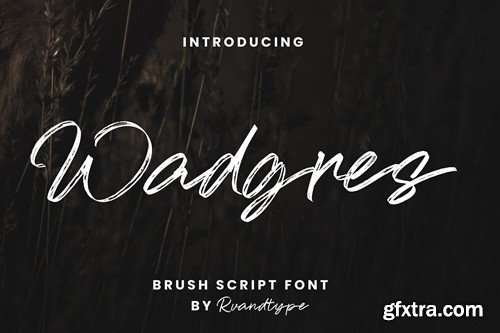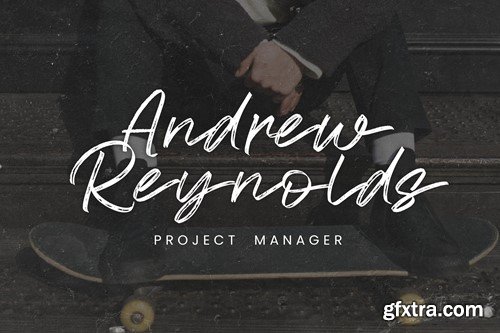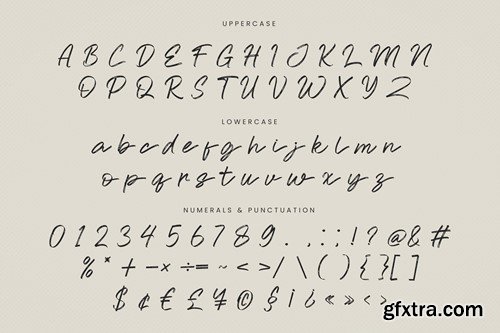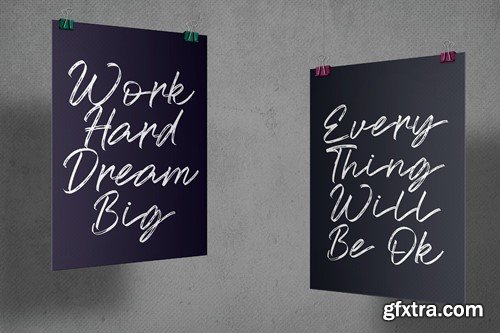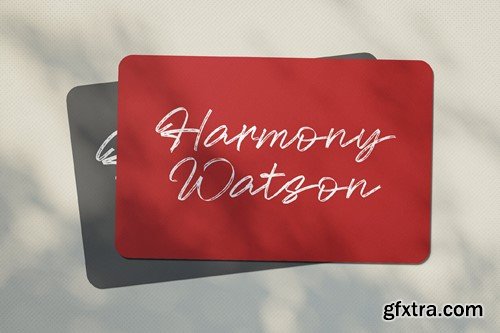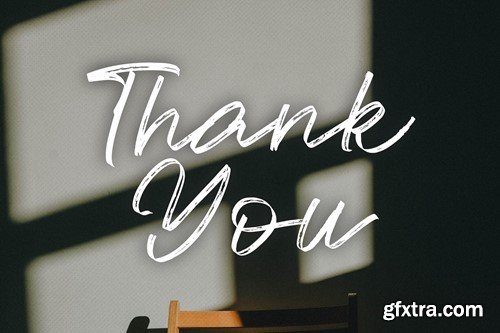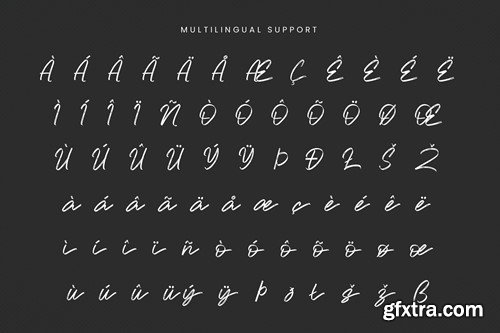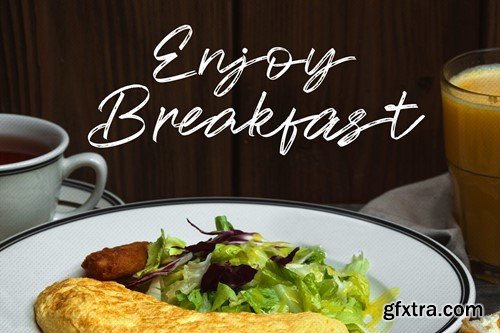
瓦德格斯 - 福克斯字体 X6QPMW8
Wadgres - Brush Script Font X6QPMW8
Wadgres - Brush Script Font
Wadgres is a Script Brush font. Its elegant and cool look makes it the perfect choice for logos, branding, invitations, stationery, wedding designs, social media posts, and so much more. Wadgres Font is PUA encoded which means you can access all of the glyphs.
Features :
• Uppercase & Lowercase
• Alternate Characters
• Numbers and Punctuation
• Multilingual Support